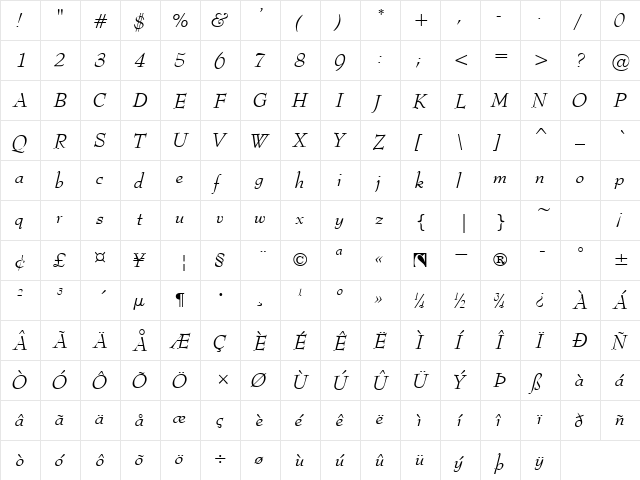
Bernard kursiv Font Preview
Bernard kursiv
Bernard kursiv Font Details
Design Context for Bernard Typeface
Bernard is a composed and adaptable typeface that performs quietly and consistently across a wide range of design contexts. Its italic angle brings a sense of urgency and motion to the letterforms.
Pro Tip: Try Bernard for annotation and caption copy alongside an upright companion — the contrast in angle creates a dynamic but ordered typographic system.